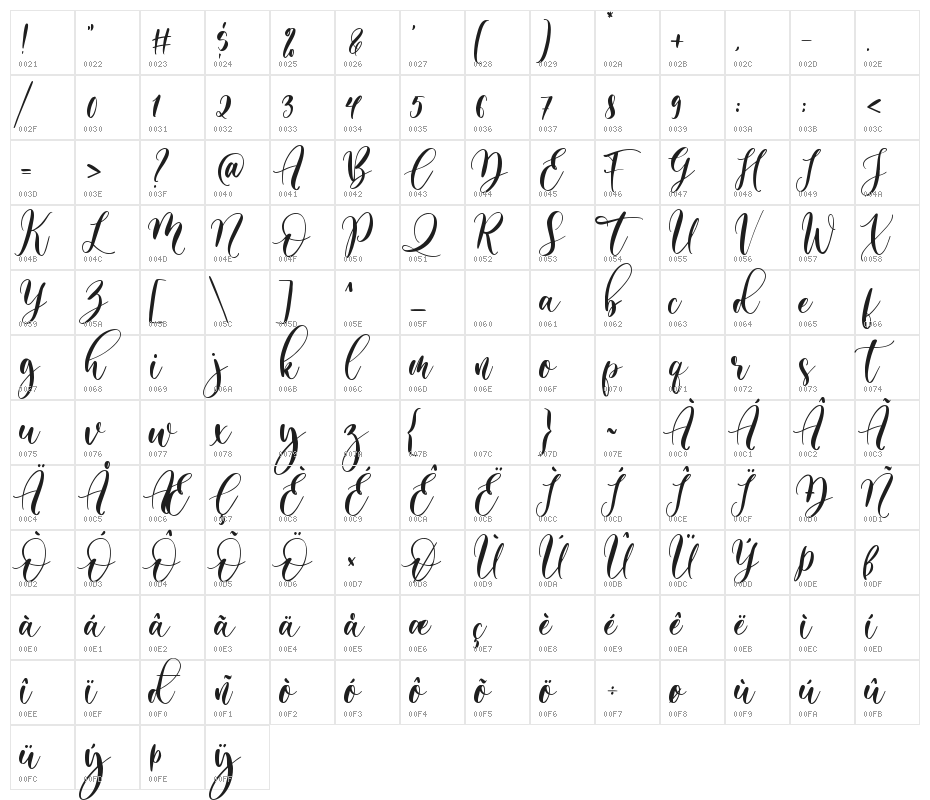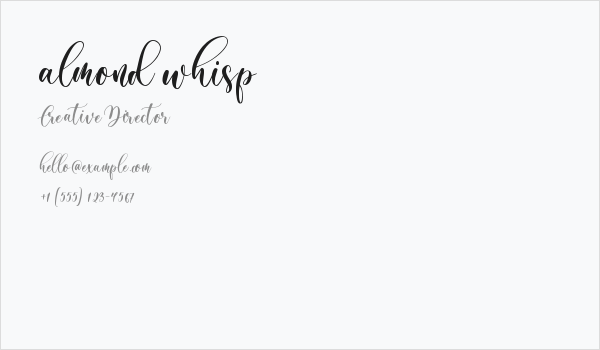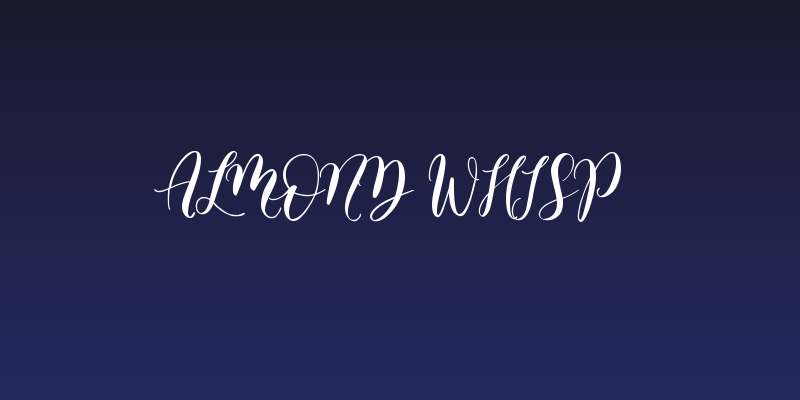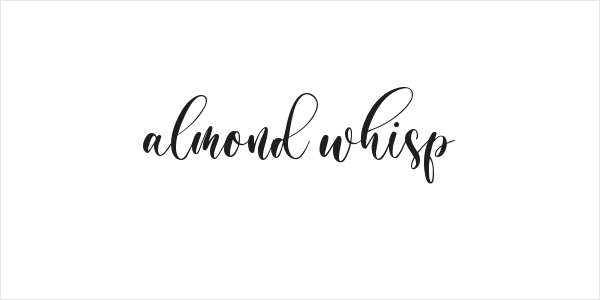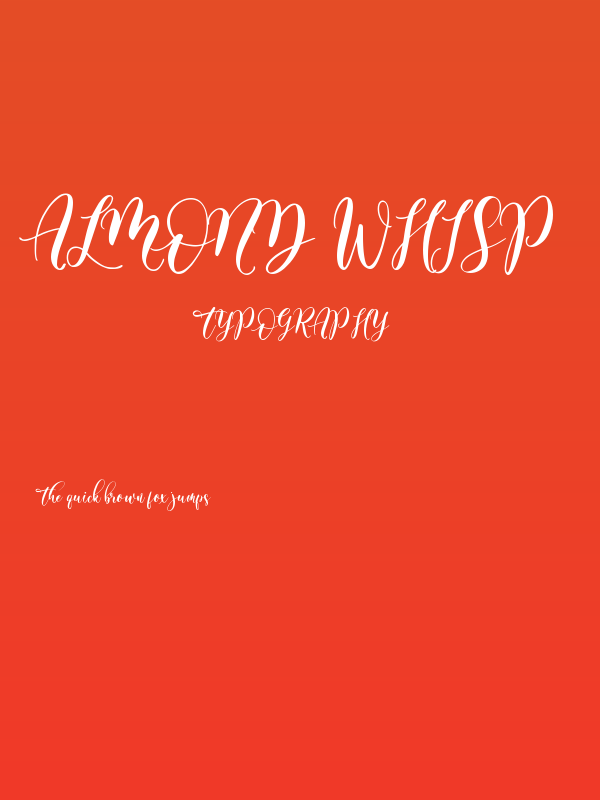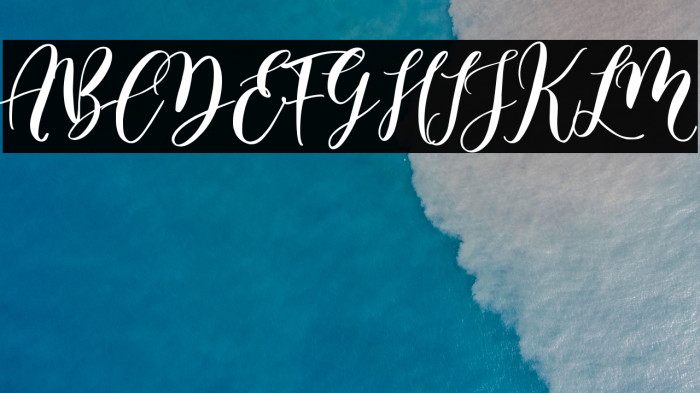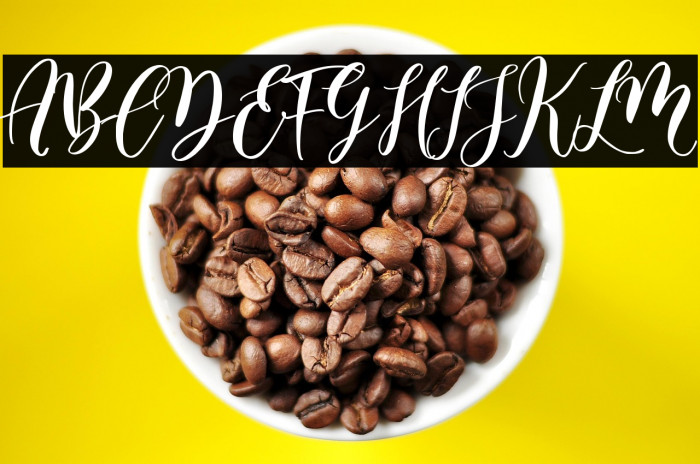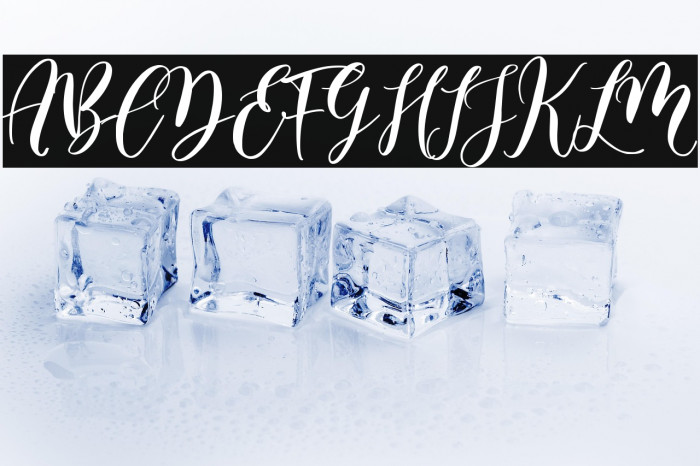
almond whisp Font
almond whisp Description
This font features a flowing, cursive style with elegant, sweeping strokes that give it a sophisticated and artistic appearance. The uppercase letters are characterized by their tall, graceful loops and flourishes, while the lowercase letters maintain a consistent, fluid motion. The numerals are styled to match the overall aesthetic, with a slight slant and decorative flair. Special characters are integrated seamlessly, maintaining the font's cohesive look. The overall design is reminiscent of calligraphy, making it suitable for projects that require a touch of elegance and creativity.
| Proposed Projects | Ideal for wedding invitations, greeting cards, branding, and artistic projects that require a touch of elegance. |